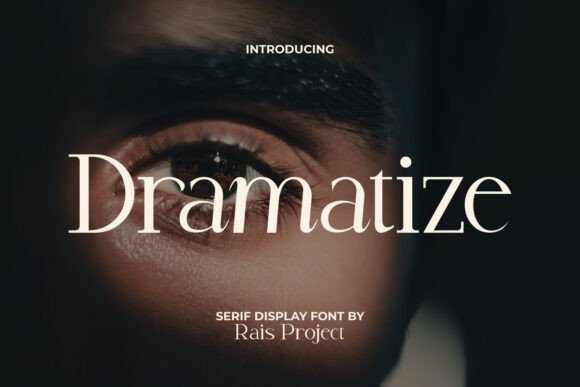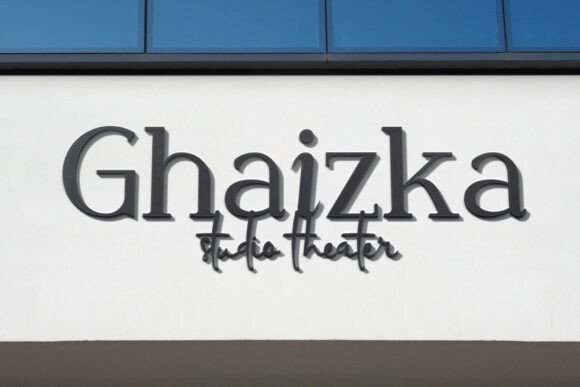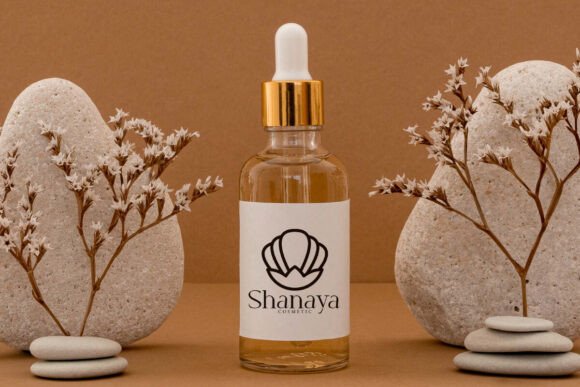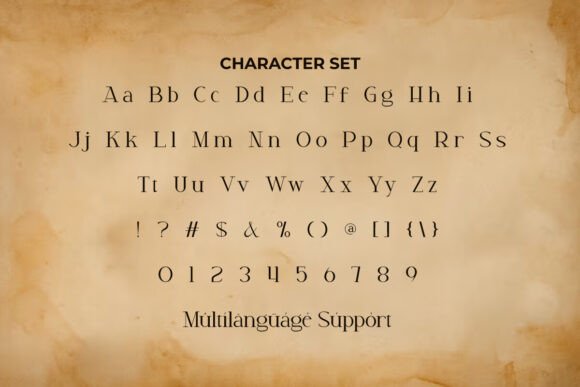
Dramatize Font
About the Dramatize Font
Crafted with precision, the Dramatize Font is ready to bring your ideas to life. Dramatize Font is a beautiful aesthetic modern serif display font. This font can give the impression of a film with a dramatic title to attract attention. It will work well in many designs, such as brand image, custom design, invitation, label, menu, poster, product packaging, quote, signage, stationery, web, and more!
Dramatize excels as a headline font for posters, branding materials, and short impactful statements. Its strong serifs and confident forms command attention, making it ideal for projects needing a dramatic and authoritative presence. However, its decorative nature makes it less suitable for body text or UI elements where readability is paramount; extended use would strain legibility.
Consider pairing Dramatize with a clean sans-serif like Open Sans for body copy, maintaining a strong visual hierarchy. For a more luxurious feel, a delicate script font such as Great Vibes could complement its bold character. Alternatively, a geometric sans-serif offers a modern counterpoint, enhancing its dramatic flair without overwhelming the design.
Dramatize possesses a bold, slightly rebellious personality, suitable for brands projecting confidence and a sense of high drama. It’s perfect for projects in the entertainment, fashion, or luxury goods sectors, where a strong visual identity is crucial.
Dramatize Font Usage Examples
Dramatize Font Example